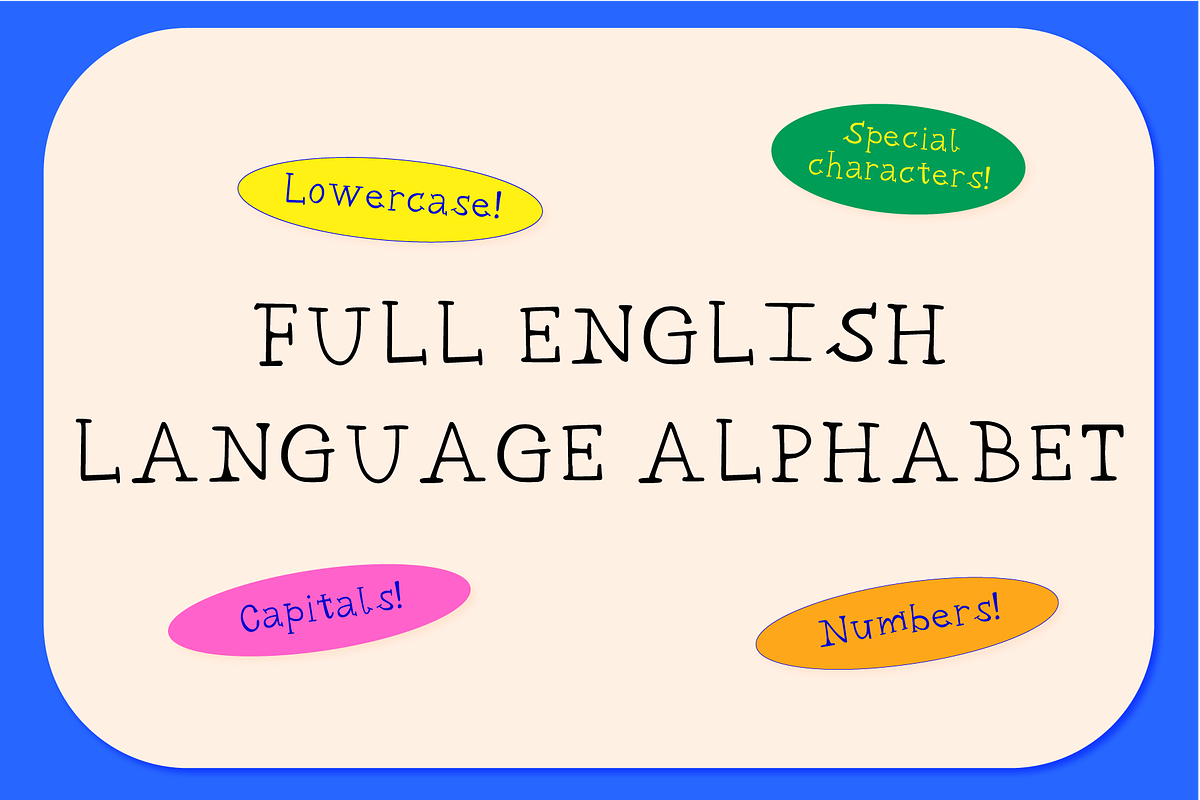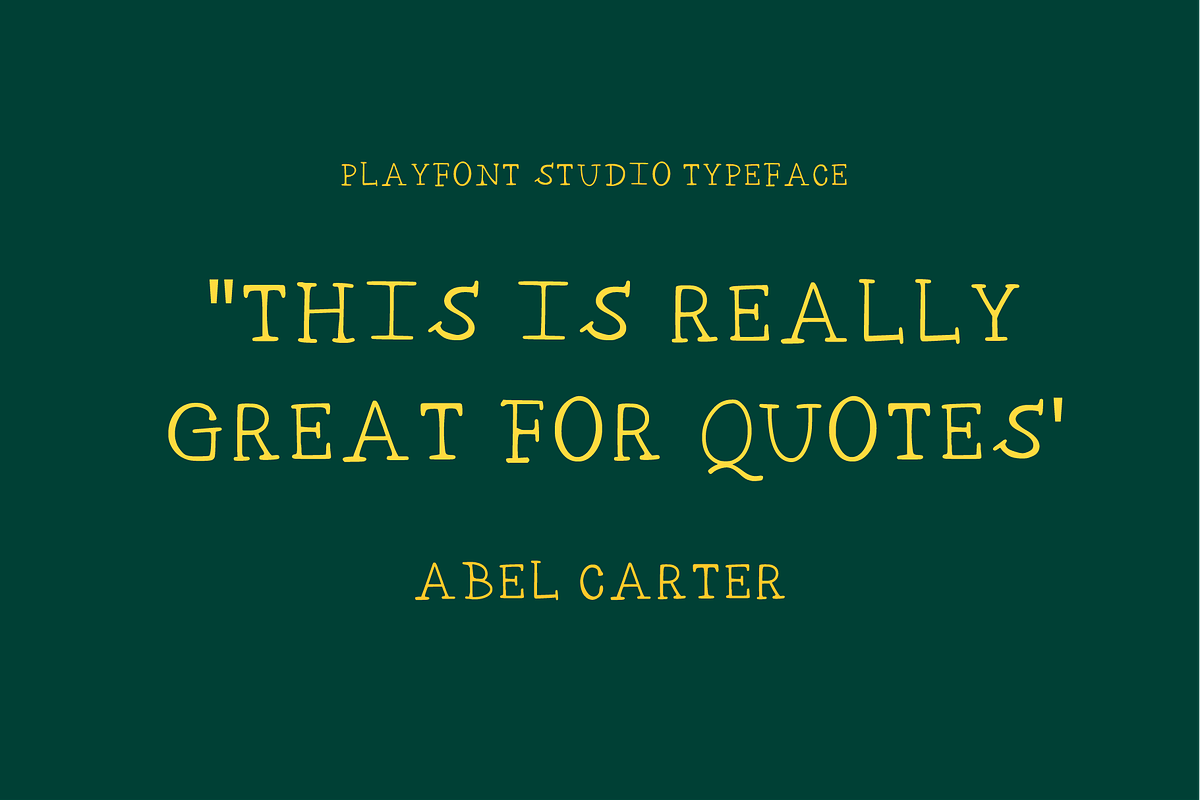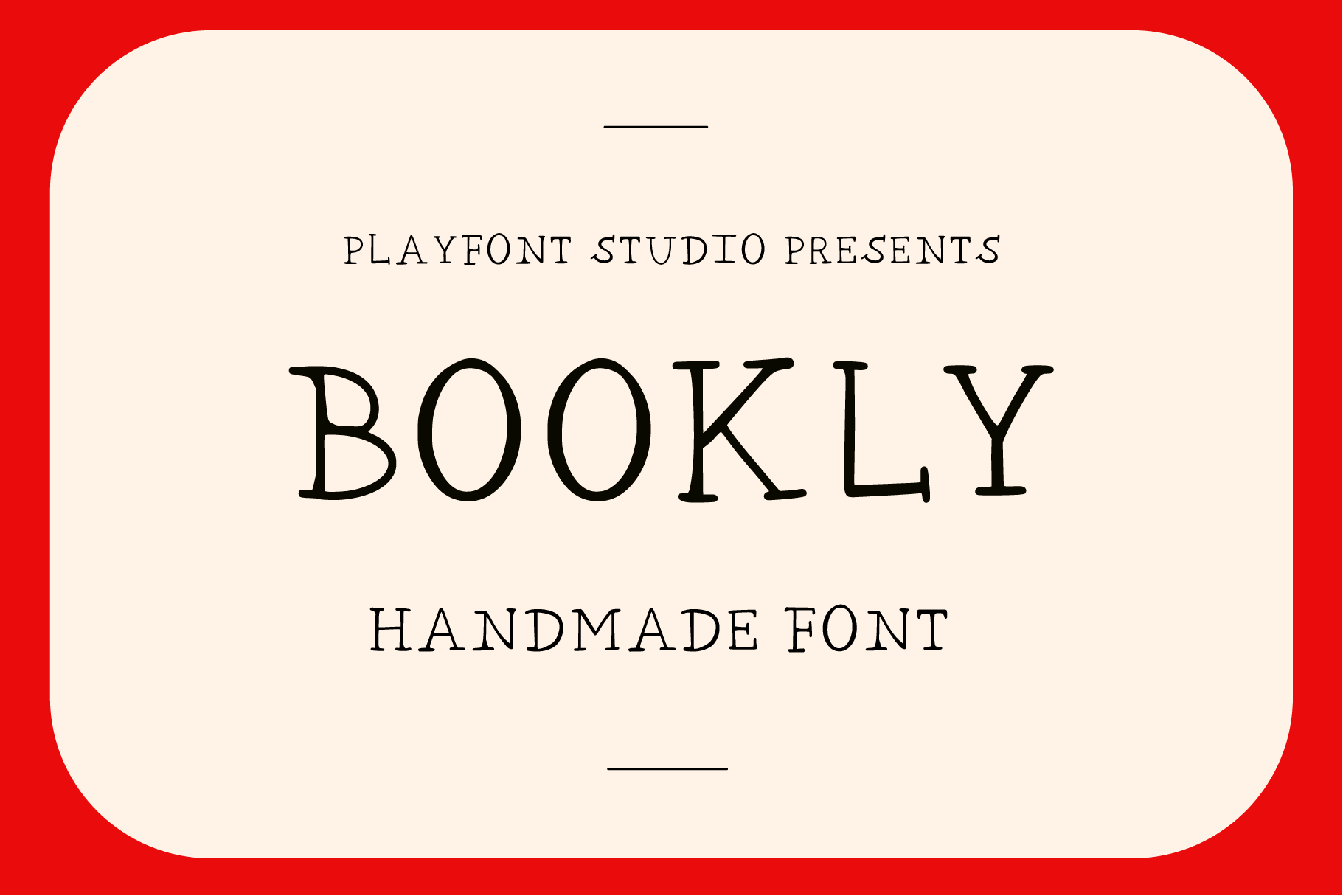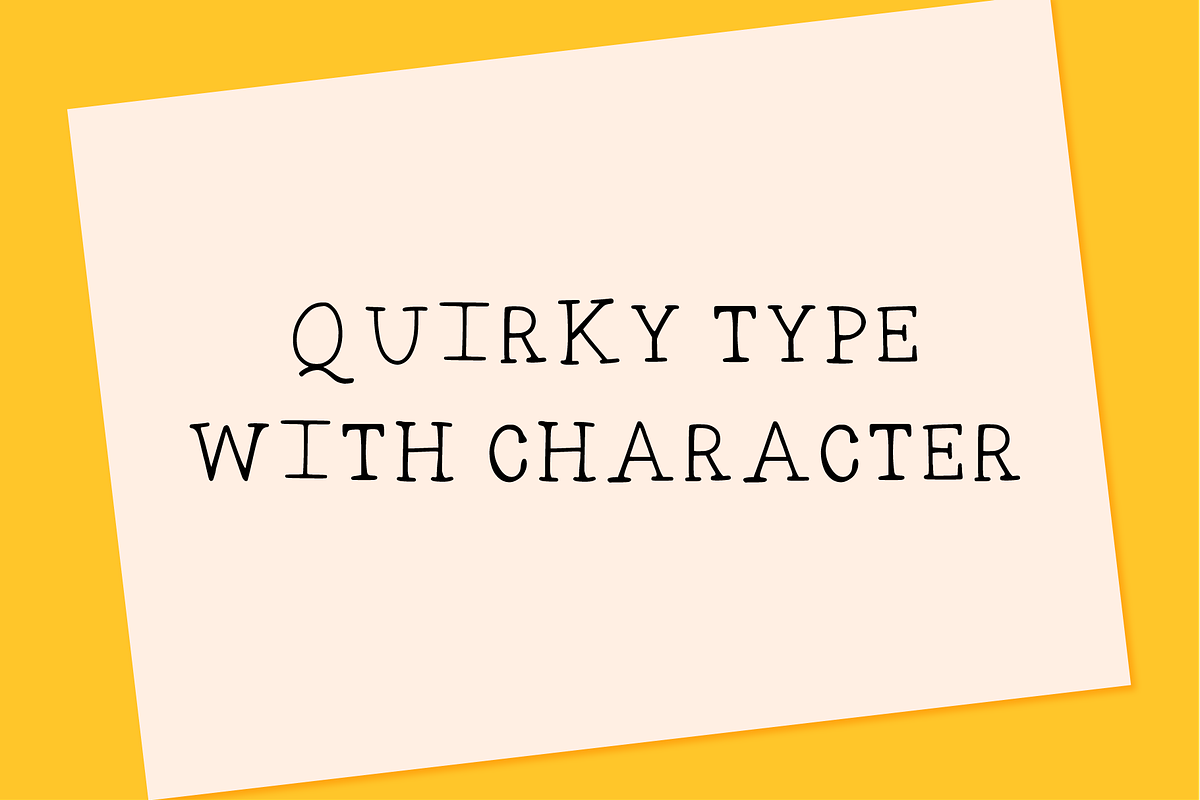
Bookly - A Quirky Hand-Drawn Font
Smart. A little bit weird. Exactly what your project needs.
Bookly is a quirky hand-drawn font with the kind of warmth and intelligence that elevates editorial layouts, stationery brands, and creative projects that want to feel considered rather than corporate. Its slightly unpredictable letterforms give it genuine personality — the kind that keeps eyes on the page.
- Editorial design & independent publishing
- Stationery brands & greeting cards
- Book cover design & literary branding
- Lifestyle & wellness brand identity
- Podcast artwork & YouTube branding
- Creative agency & freelance portfolios
- Full uppercase & lowercase character set
For designers who know that the most interesting work always has a point of view.